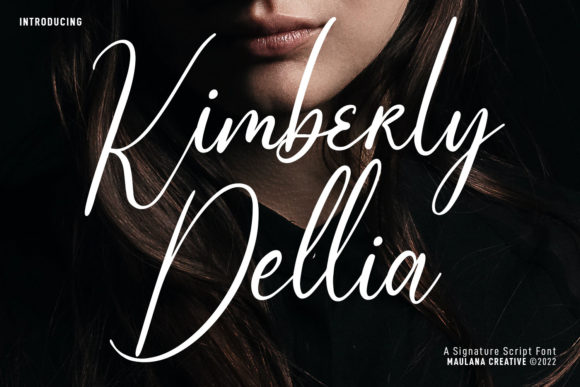
In a world saturated with generic fonts, Kimberly Dellia emerges as a refreshing oasis of originality and charm. Its medium contrast strokes dance across the page, evoking a sense of effortless elegance and sophistication. The playful characters exude a warmth and approachability that draws the reader in, inviting them to explore the boundless possibilities that await.
Kimberly Dellia's ligatures and alternates add a touch of intrigue and visual interest, transforming ordinary text into a captivating visual feast. Its versatility knows no bounds, seamlessly adapting to a myriad of projects, from blog posts and logos to branding, ads, invitations, greeting cards, planners, photo albums, decorations, and more. It's the perfect font for those seeking to infuse their creative endeavors with a touch of whimsy and distinction.
Imagine the allure of a food blog adorned with Kimberly Dellia's graceful curves, tantalizing readers with culinary delights. The font's inherent charm effortlessly complements mouthwatering images, enhancing the sensory experience and leaving readers craving more.
Picture a logo that exudes both professionalism and a hint of playfulness, crafted with Kimberly Dellia's distinct strokes. It instantly captivates the attention, leaving a lasting impression that sets your brand apart from the competition.
Envision branding materials that radiate warmth and authenticity, thanks to Kimberly Dellia's inviting personality. Your brand's message resonates with customers on a deeper level, forging connections that extend beyond mere transactions.
Step into a world where your creative projects come alive with Kimberly Dellia's magic touch. Its versatility allows you to explore new horizons, transforming your ideas into visually stunning expressions that captivate and inspire.
With Kimberly Dellia as your creative companion, the possibilities are endless. Embrace the font's allure and watch as your projects blossom into masterpieces of visual artistry, leaving an indelible mark on the hearts and minds of your audience.